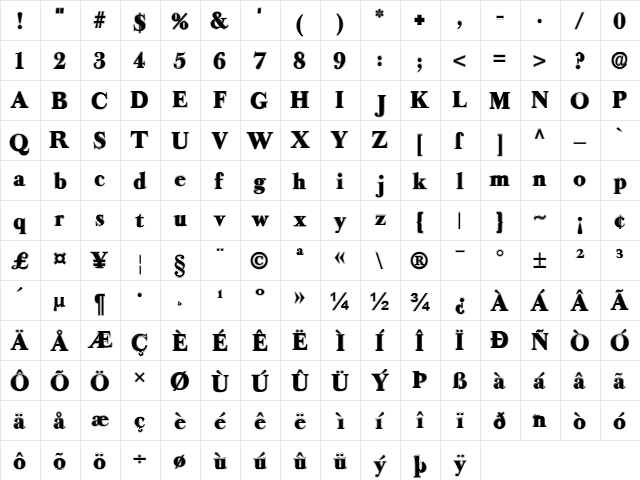
Long Island Contour Regular
Design Context for Long Island Contour Typeface
Long Island Contour offers clean, dependable letterforms without strong stylistic allegiance, making it a practical choice for designers who need flexibility.